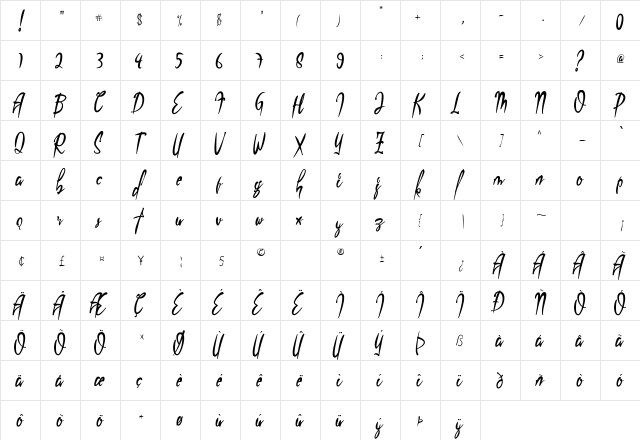
Ellpacino Handbrush Regular
Design Context for Ellpacino Handbrush Typeface
Ellpacino Handbrush flows with the natural rhythm of handwritten lettering, making it ideal for designs that call for warmth and personal expression.
Font Pairing: Combine Ellpacino Handbrush with a simple geometric sans for maximum contrast — the tension between flowing curves and clean structure is a classic typographic pairing.
Pro Tip: Use Ellpacino Handbrush for short runs of text — names, titles, or taglines. Extended body copy in script faces tires the eye quickly.